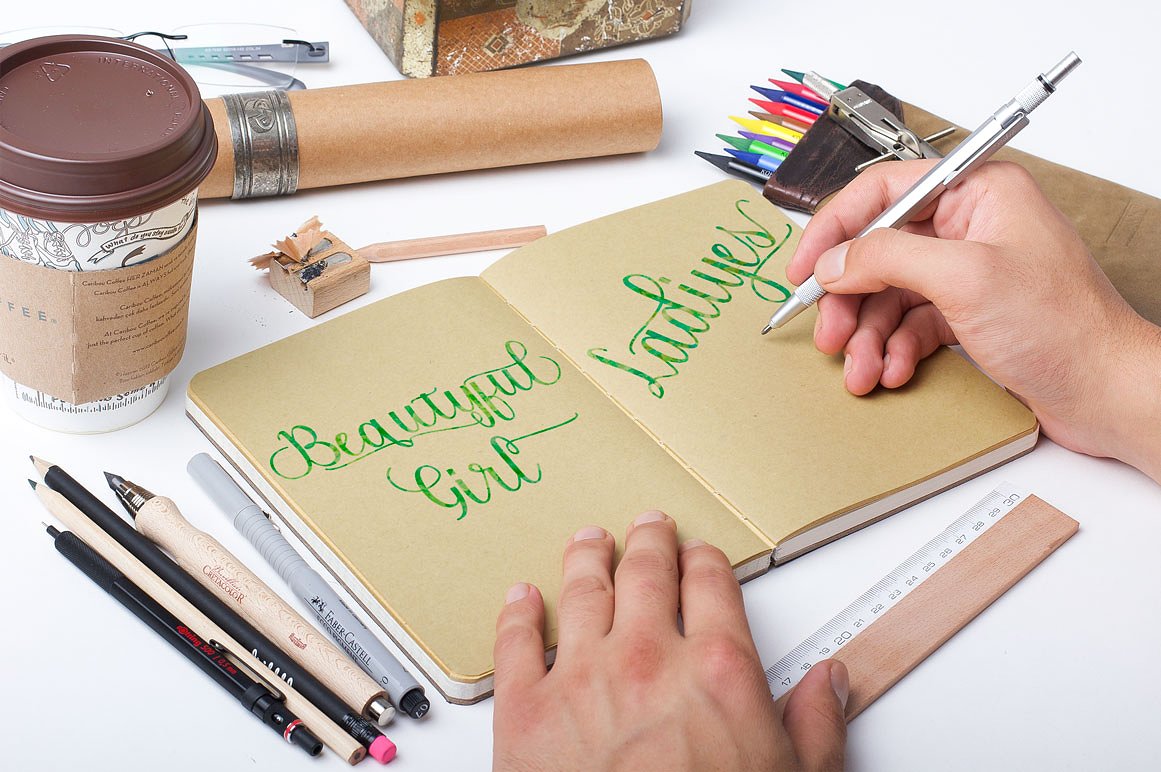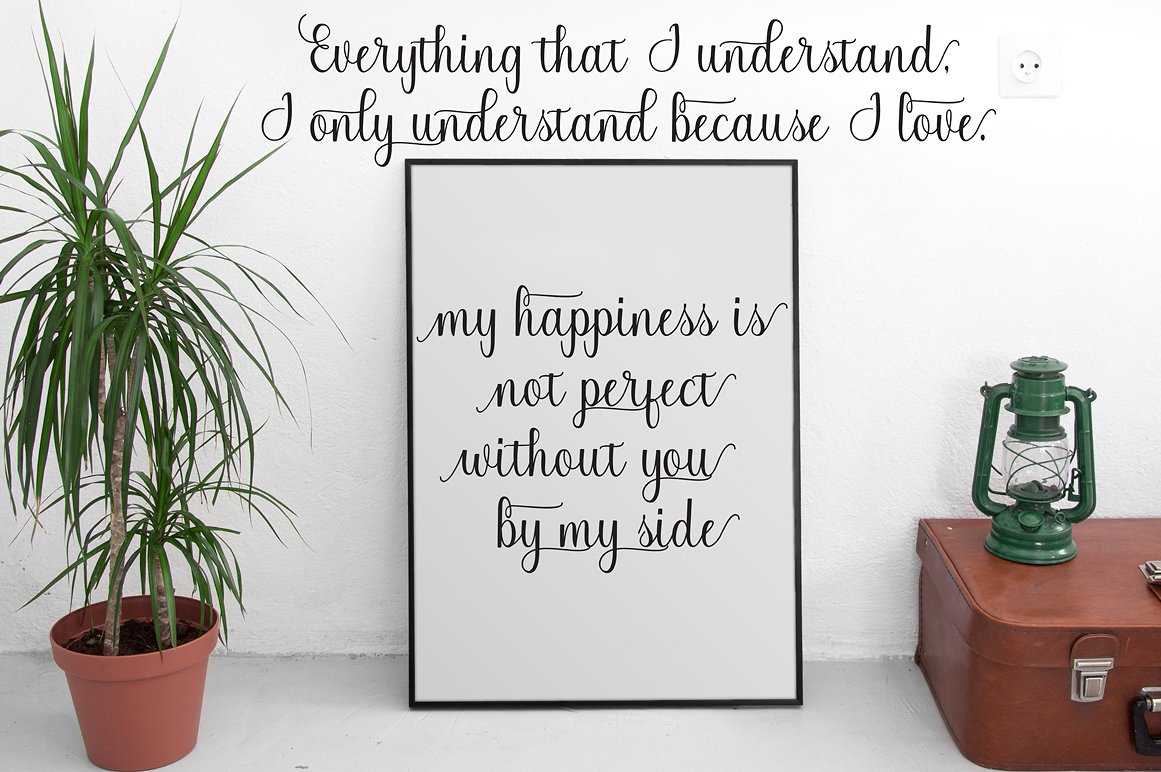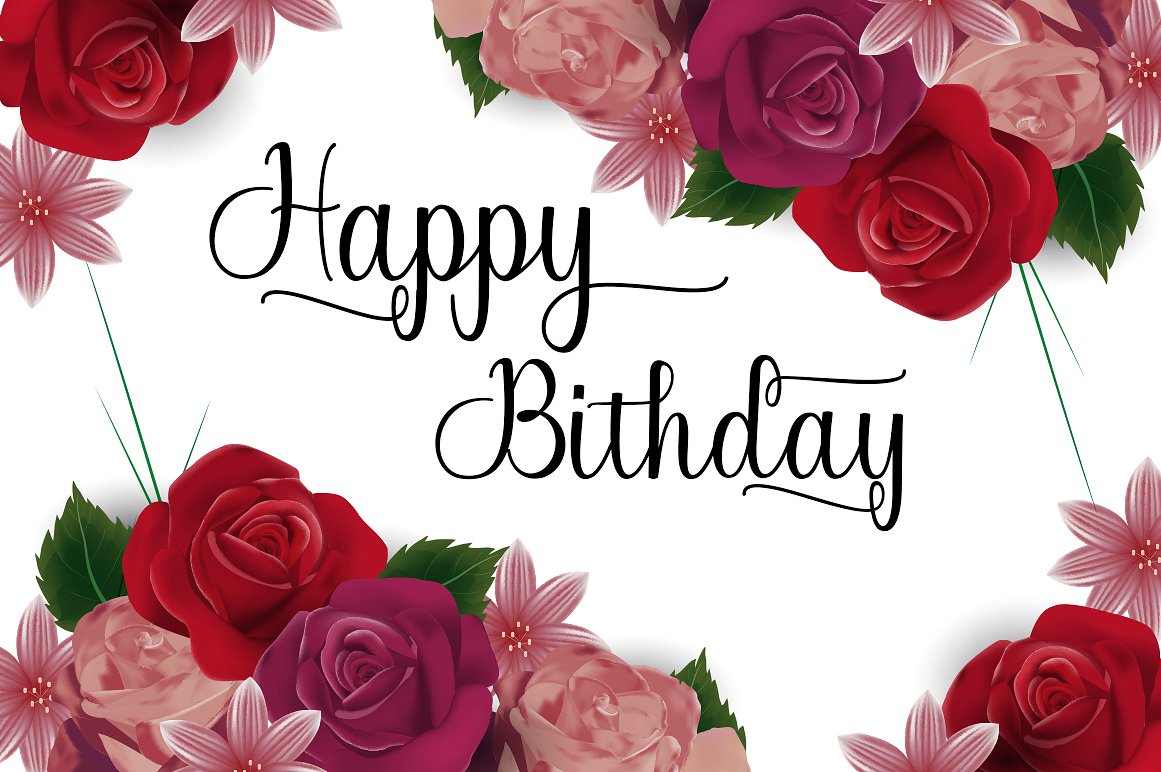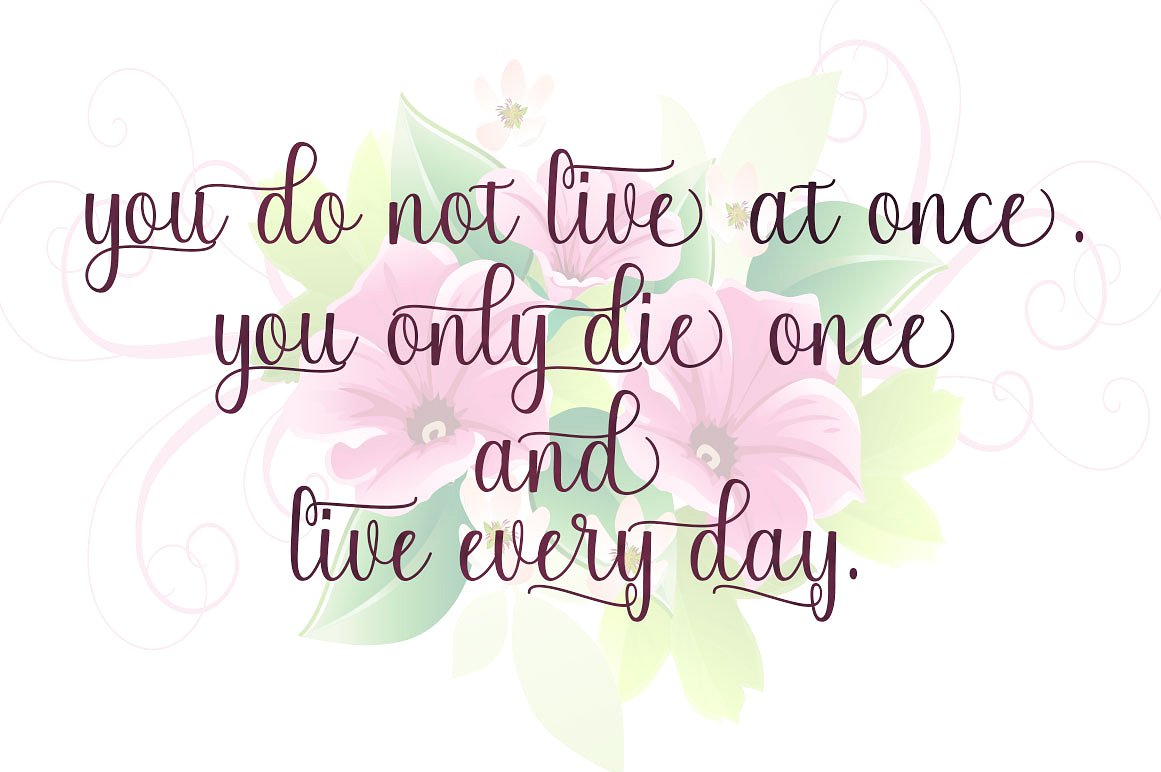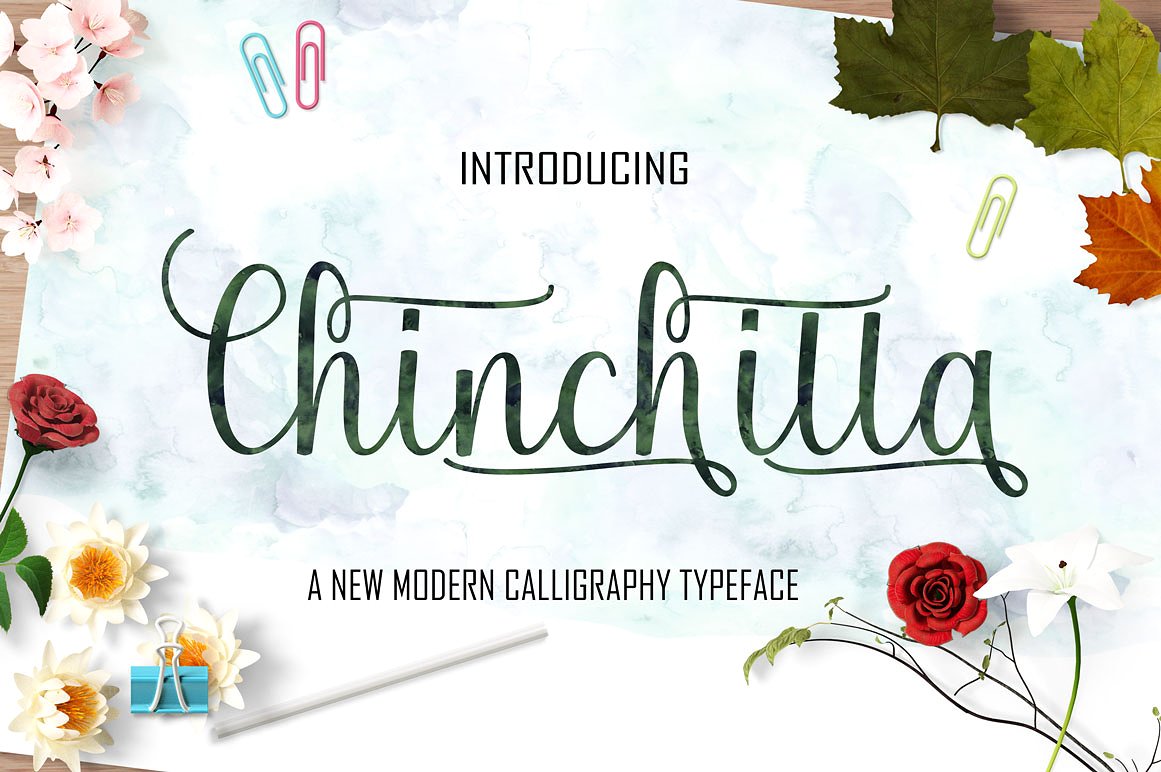
Chinchilla Script Font
Chinchilla Script Font – Free Demo
Introducing Chinchilla Font. It is a product designed and shared by JoeeCreative. Chinchilla Modern Calligraphy. This font was designed by handwriting, and it has a modern and unique forms of calligraphy, the writing style is very natural. Chinchilla is easy and simple to use and is perfect for branding, logos, greeting cards, wedding stationery, quotes and much more!